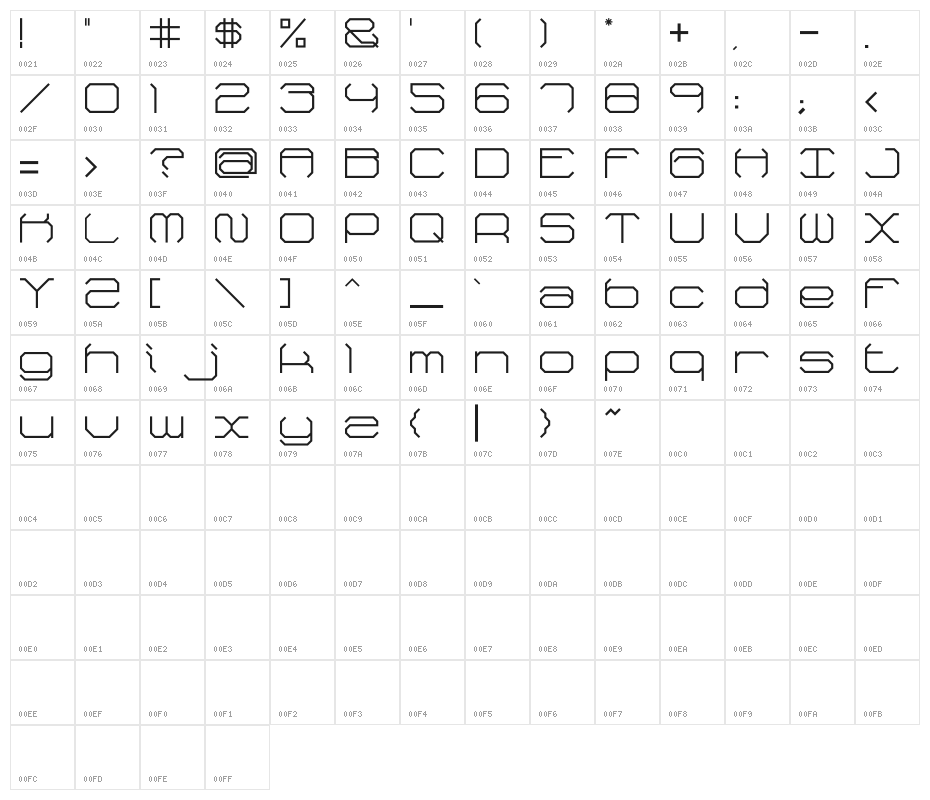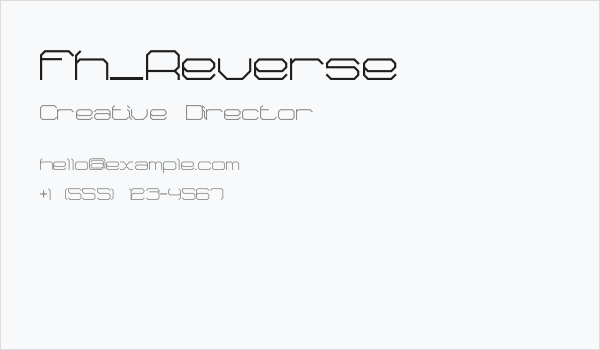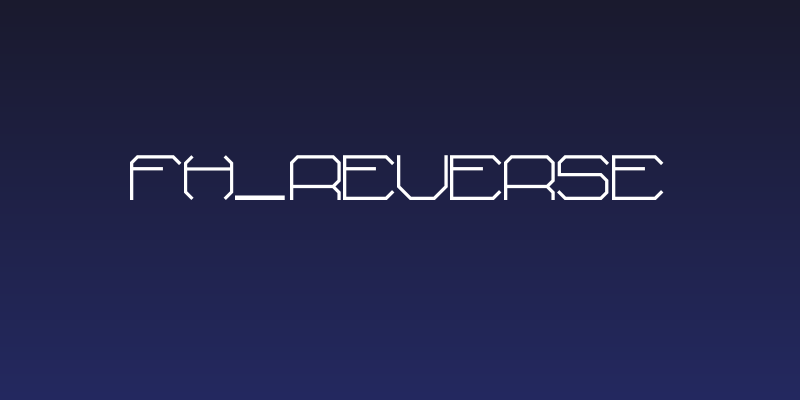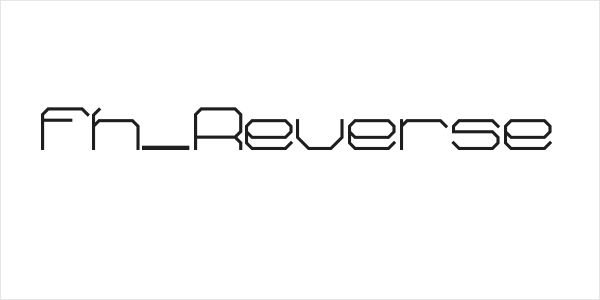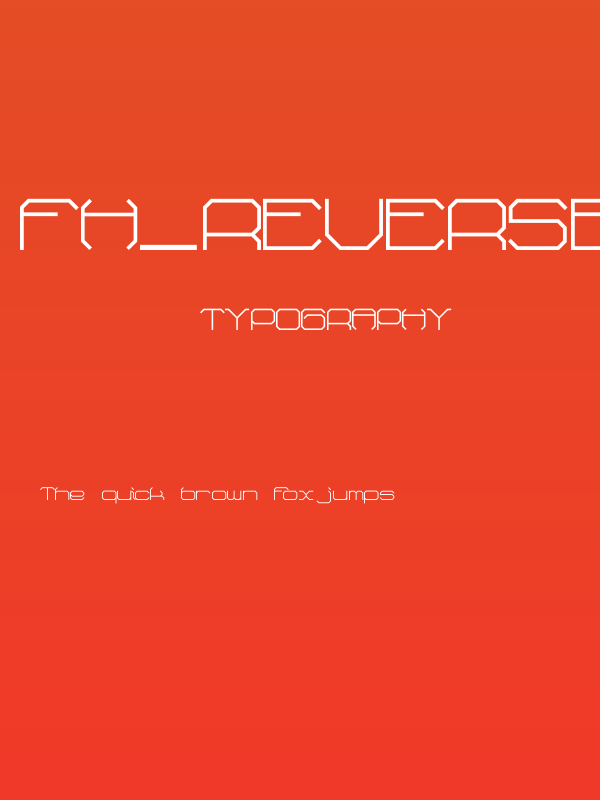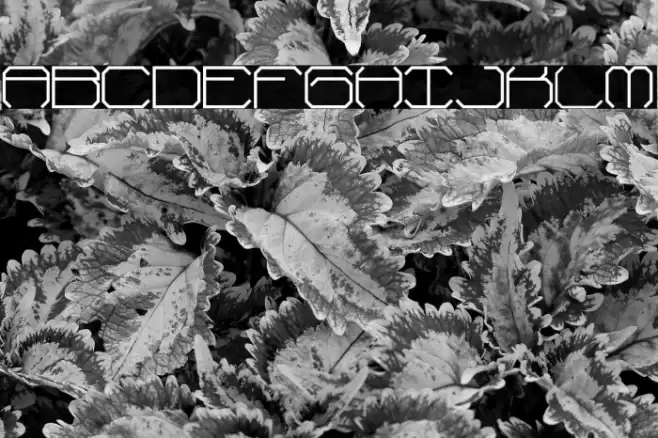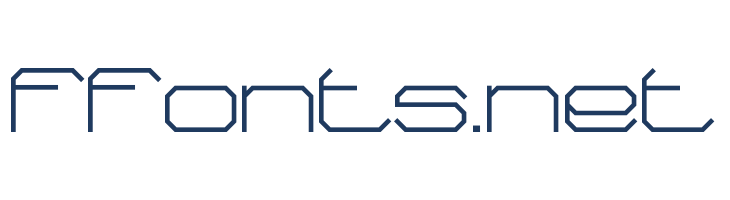
Fh_Reverse Font
Fh_Reverse Description
This font features a unique, geometric design with angular, interconnected lines forming each character. The style is reminiscent of digital or futuristic themes, with each letter and number crafted from a series of straight lines and sharp angles. The uppercase and lowercase letters maintain a consistent height, contributing to a uniform appearance. The numerals and special characters follow the same design principles, ensuring cohesion throughout the character set. This font's distinct style makes it suitable for projects that require a modern, tech-inspired aesthetic.
| Proposed Projects | Ideal for technology branding, sci-fi posters, digital interfaces, and modern art designs. |